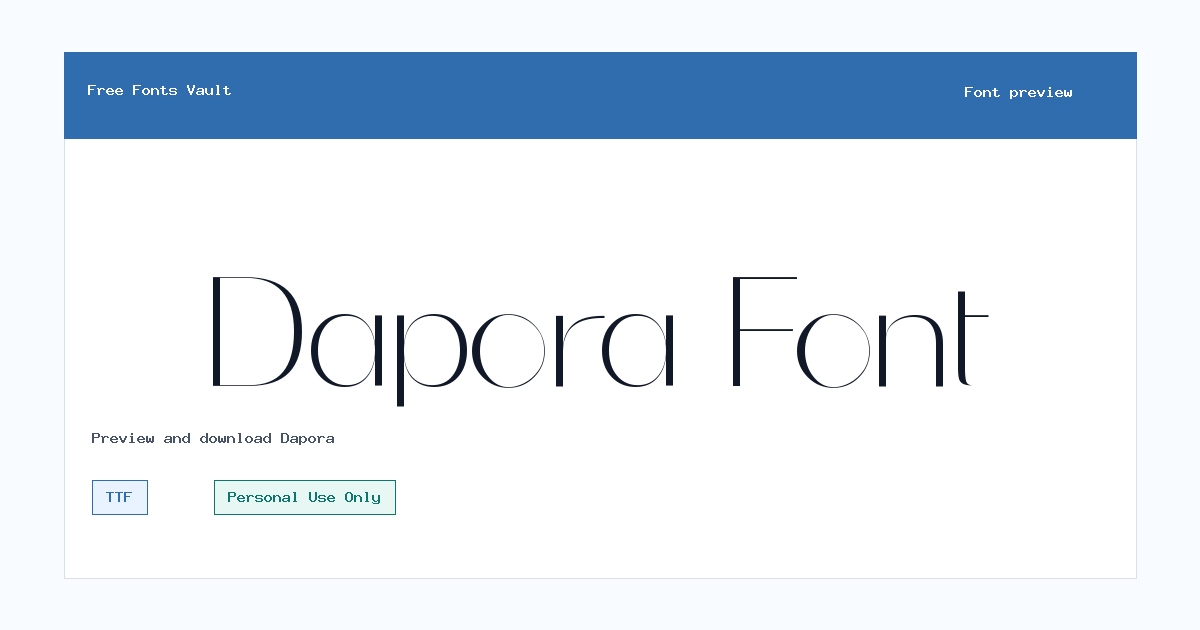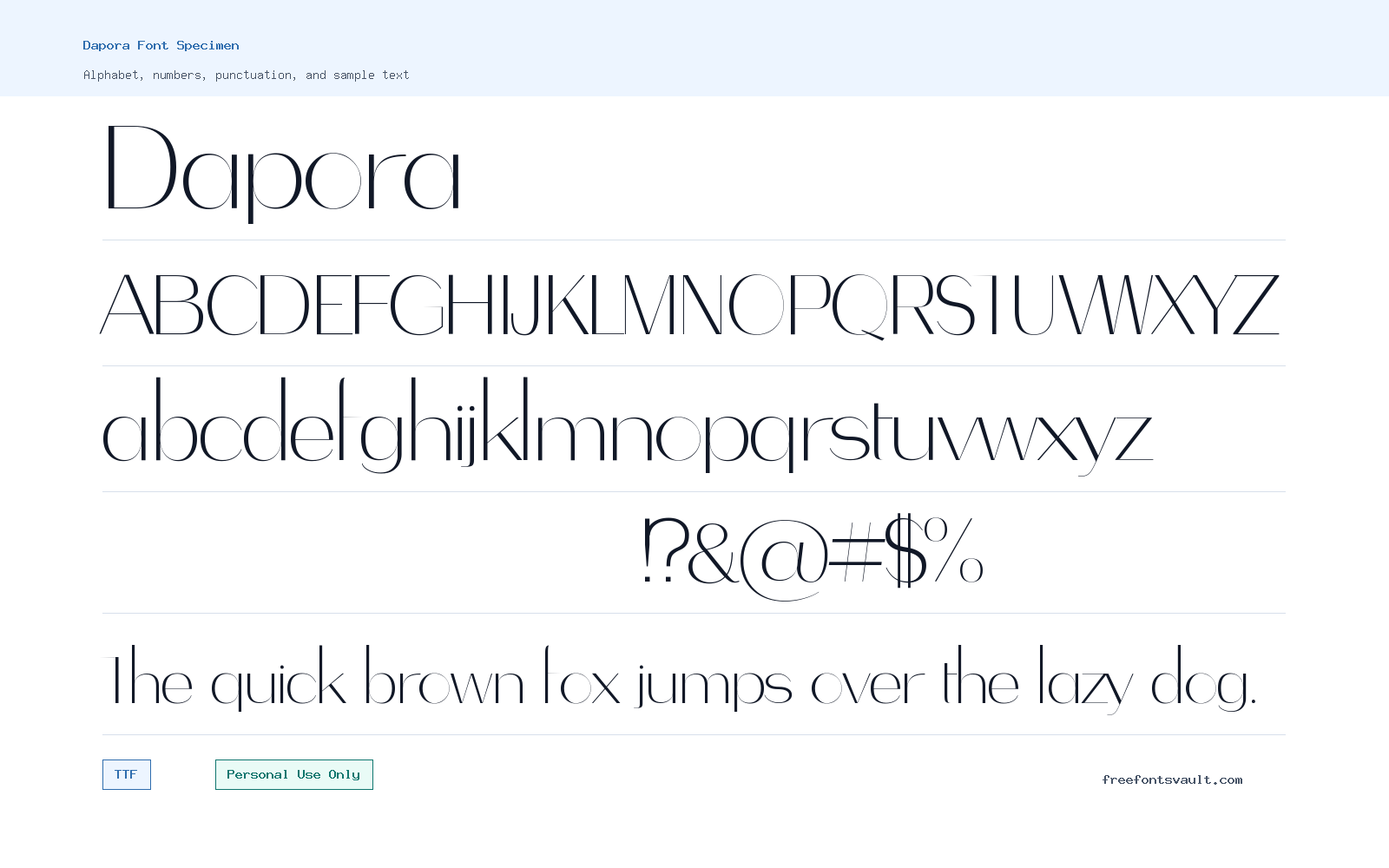
Dapora
Dapora font.
Dapora is a sans serif font offered in a regular TTF style. It is best approached as a personal-use font: preview your own text, check the spacing at the size you need, and confirm the license before using it beyond private work.
About Dapora Font
Dapora gives visitors a simple sans serif option in a standard regular weight. Because the font file is a TTF, it should be easy to test in most desktop design apps and common font preview tools. Use the preview box with the exact words you plan to set, especially if your design depends on names, short headings, social captions, labels, or small blocks of display text.
For best results, test Dapora in both uppercase and lowercase before downloading. Sans serif fonts can work well for clean titles, simple layouts, thumbnails, mockups, and personal graphics, but every font behaves differently at small sizes. Check letter spacing, punctuation, numbers, and any special characters you need. If you are building a design with longer paragraphs, compare it with a more text-focused companion font and keep Dapora for headings or short supporting lines unless your preview shows strong readability.
- Sans serif family style
- Normal upright style
- Good candidate for testing short headings and personal design mockups
- Personal posters, cards, and social graphics
- Short headings, labels, and preview mockups
- Clean layout tests in design software
- Personal branding drafts before choosing a final licensed font